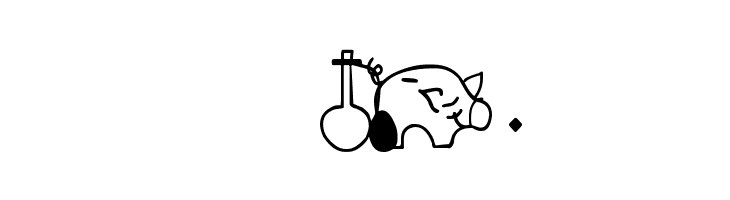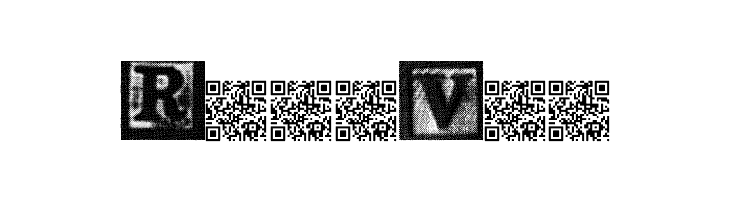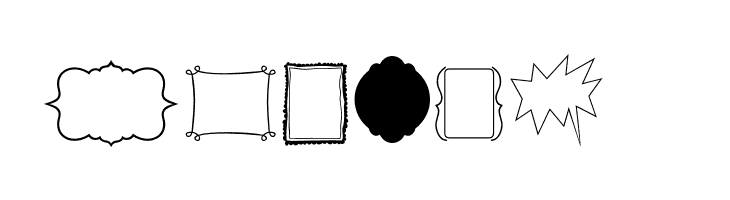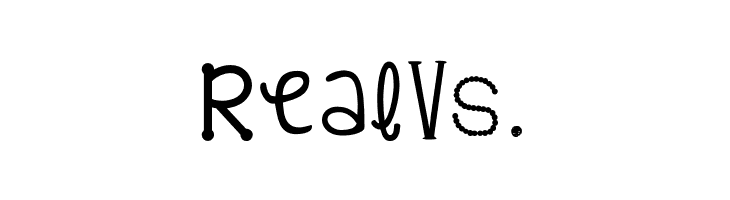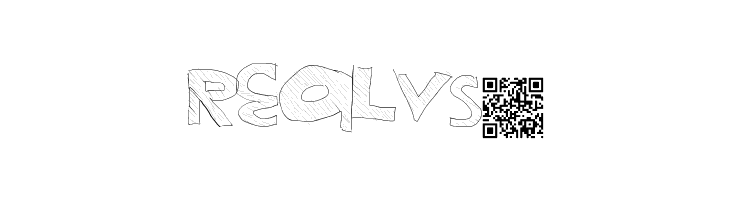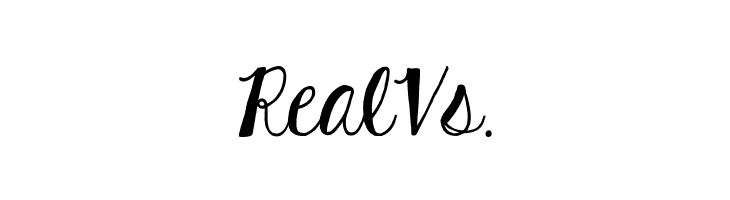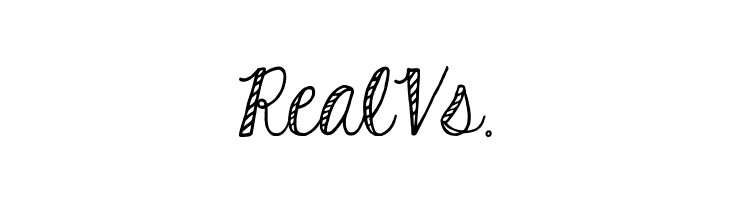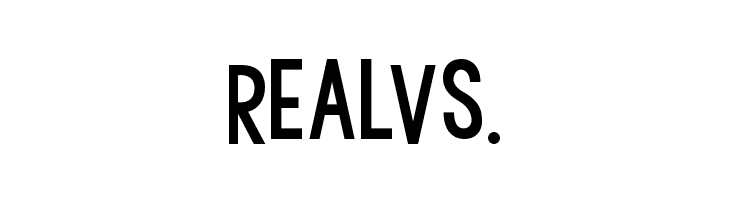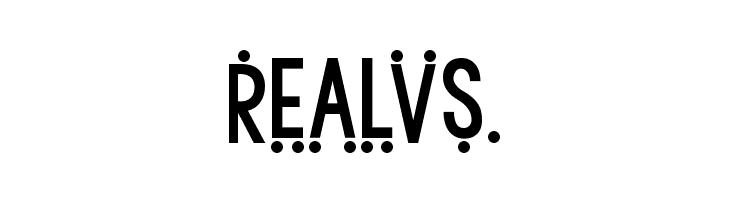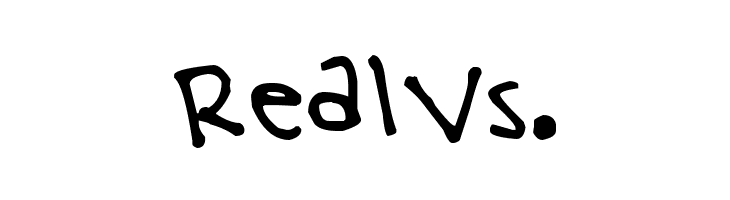
( Fonts by www.kimberlygeswein.com - Kimberly Geswein )
A bold, playful font with rounded edges and a friendly appearance.
( Fonts by www.kimberlygeswein.com - Kimberly Geswein )
A playful, handwritten font with rounded characters and a casual style.
( Fonts by www.kimberlygeswein.com - Kimberly Geswein )
A bold, condensed sans-serif font with clean lines and high legibility.
( Fonts by www.kimberlygeswein.com - Kimberly Geswein )
A bold, decorative font with dot accents above each character.
( Fonts by www.kimberlygeswein.com - Kimberly Geswein )
A casual, handwritten font with a playful and informal style.
( Fonts by www.kimberlygeswein.com - Kimberly Geswein )
A playful, informal handwritten font with irregular, marker-like strokes.
( Fonts by www.kimberlygeswein.com - Kimberly Geswein )
A bold, distressed font with a rugged, vintage feel.
( Fonts by www.kimberlygeswein.com - Kimberly Geswein )
A playful, casual handwritten font with smooth, connected strokes.
( Fonts by Kimberly Geswein - kimberlygeswein.com )
Hand-drawn decorative frames and comic elements in a playful style.
( Fonts by Kimberly Geswein - kimberlygeswein.com )
A playful, handwritten script font with elegant, flowing strokes.
( Fonts by Kimberly Geswein - kimberlygeswein.com )
A playful, striped, handwritten cursive font with a whimsical touch.
( Fonts by www.kimberlygeswein.com - Kimberly Geswein )
A playful, handwritten font with smooth, rounded edges.
( Fonts by www.kimberlygeswein.com - Kimberly Geswein )
A playful, casual handwritten font with fluid strokes and a natural feel.
( Anthony Robinson - www.redbubble.com/people/anfa/portfolio )
A bold, spiky font with a graffiti-like, energetic style.
( Xerographer Fonts - Max Infeld - xerographer.blogspot.com )
( Andréa de Carlo - www.thaneydesign.com )
A playful, hand-drawn font with a rustic and whimsical style.
A bold, brush-style font with a playful and artistic flair.
A playful, handwritten font with a childlike, whimsical style.
A playful, hand-drawn font with a whimsical and friendly style.
A playful, hand-drawn font with a bold, whimsical style.
A bold, italicized, and playful font with a handwritten feel, perfect for children's materials.
A playful, italicized handwritten font with smooth strokes and moderate contrast.
( Fonts by imagex )
A bold, playful font with rounded, dynamic characters.
A playful, hand-drawn font with a whimsical and childlike charm.
A playful, decorative font inspired by vintage children's alphabet blocks.
A playful, hand-drawn font with a sketch-like, youthful appearance.
A playful, hand-drawn outlined font with a whimsical and energetic style.
A playful, hand-drawn font with irregular strokes and a whimsical style.
A playful, bold font with a whimsical and childlike design.